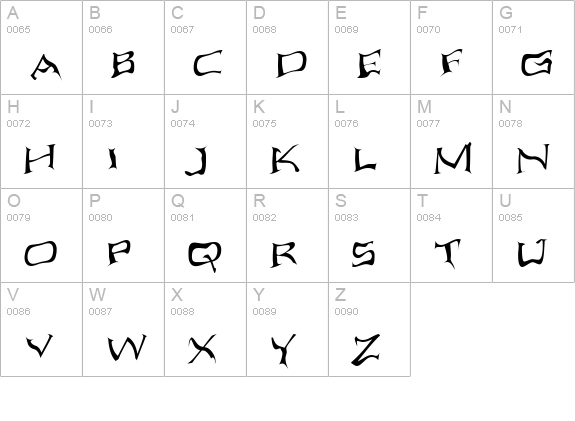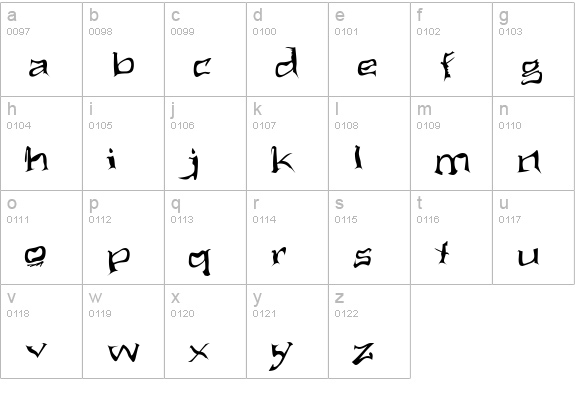
Aliens ate my mum Font Details
"Aliens Ate My Mum font is a quirky and playful typeface that will add a touch of whimsy to your designs. With its unique design featuring alien-inspired characters, this font is perfect for projects that need a fun and unconventional look. The font is freely available to download at FontsMarket.com, so you can easily add this eye-catching typeface to your collection. Whether you're working on a children's book, a party invitation, or a creative poster, Aliens Ate My Mum font is sure to make your text stand out and capture the imagination of your audience."